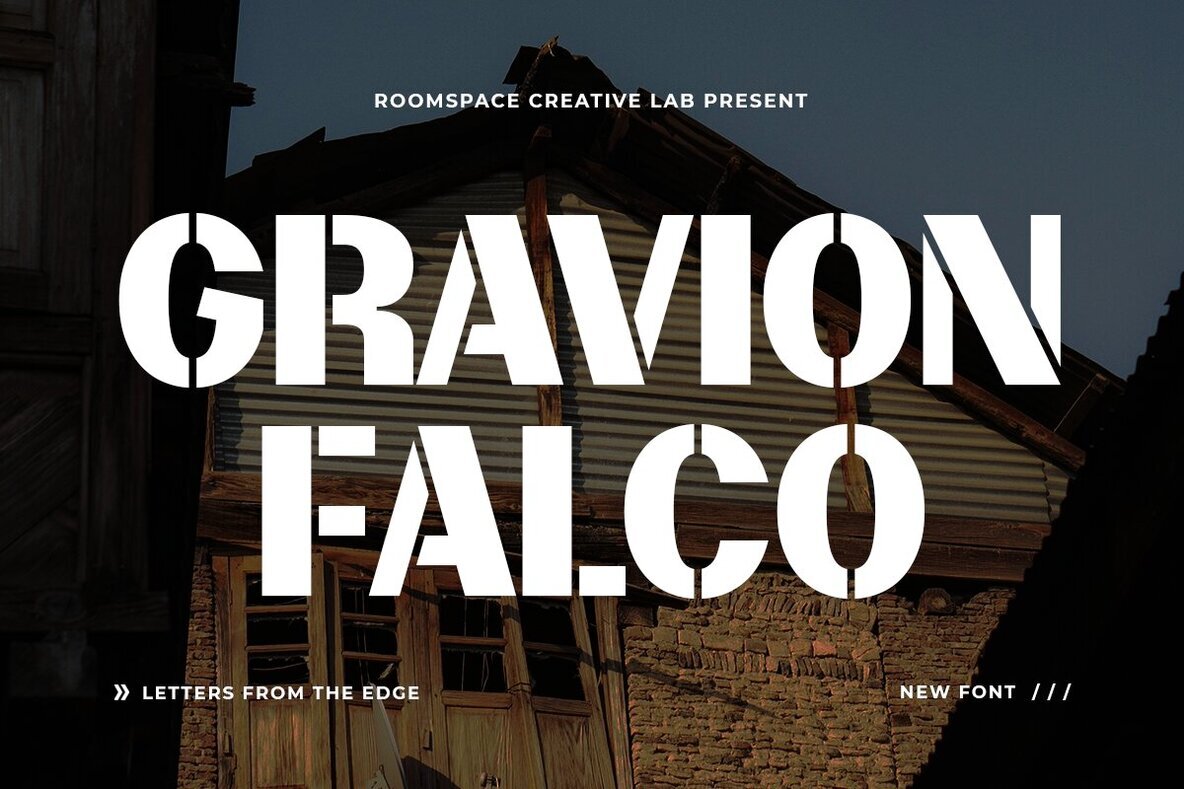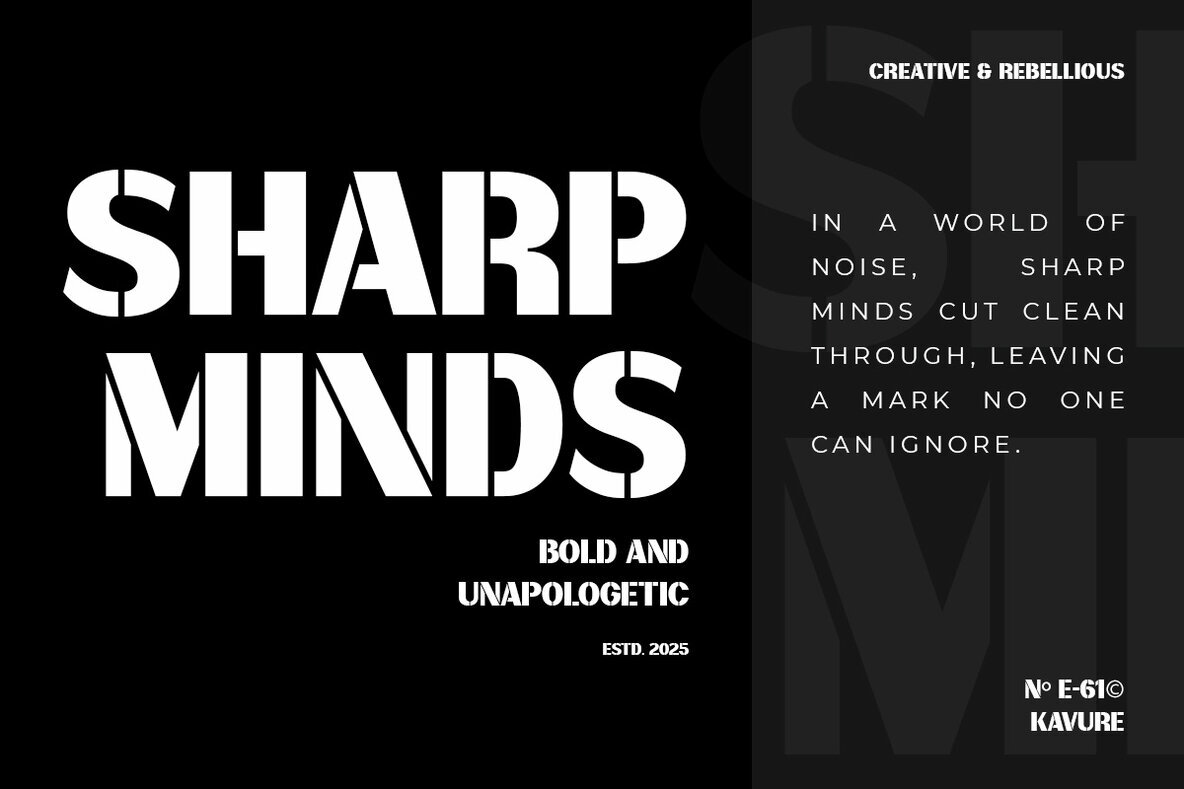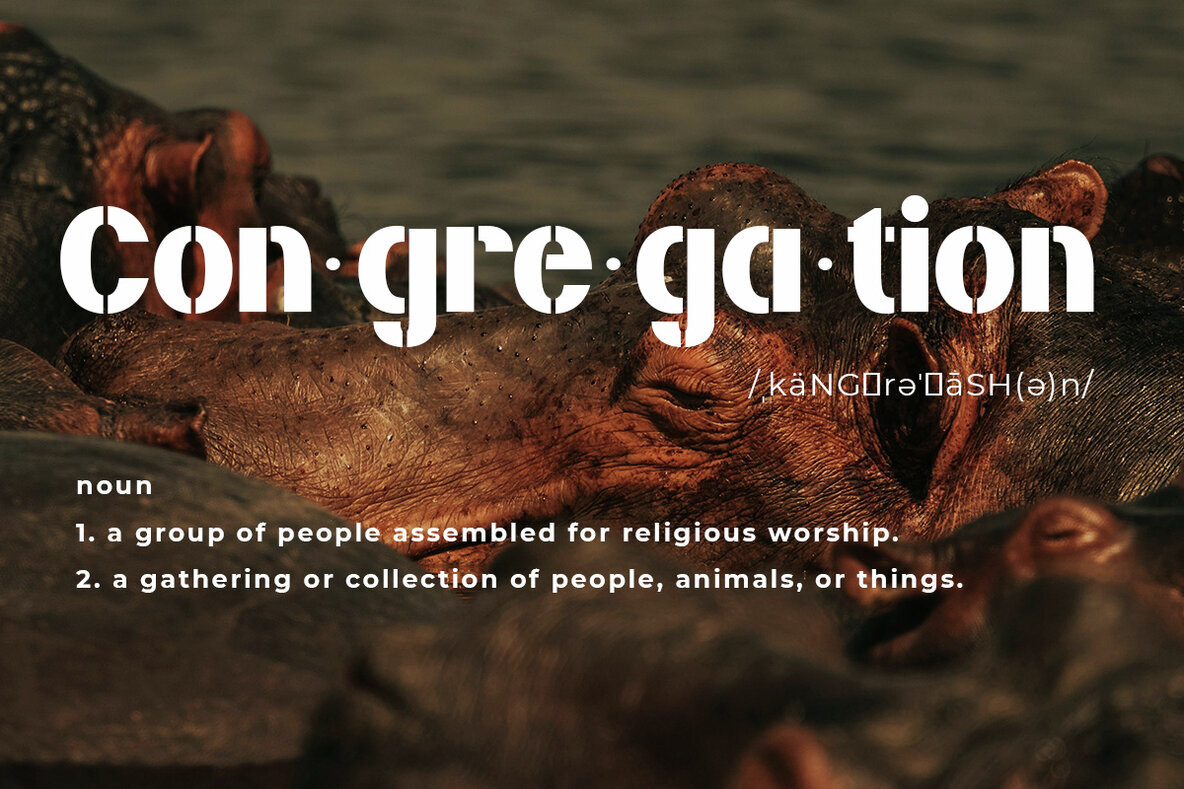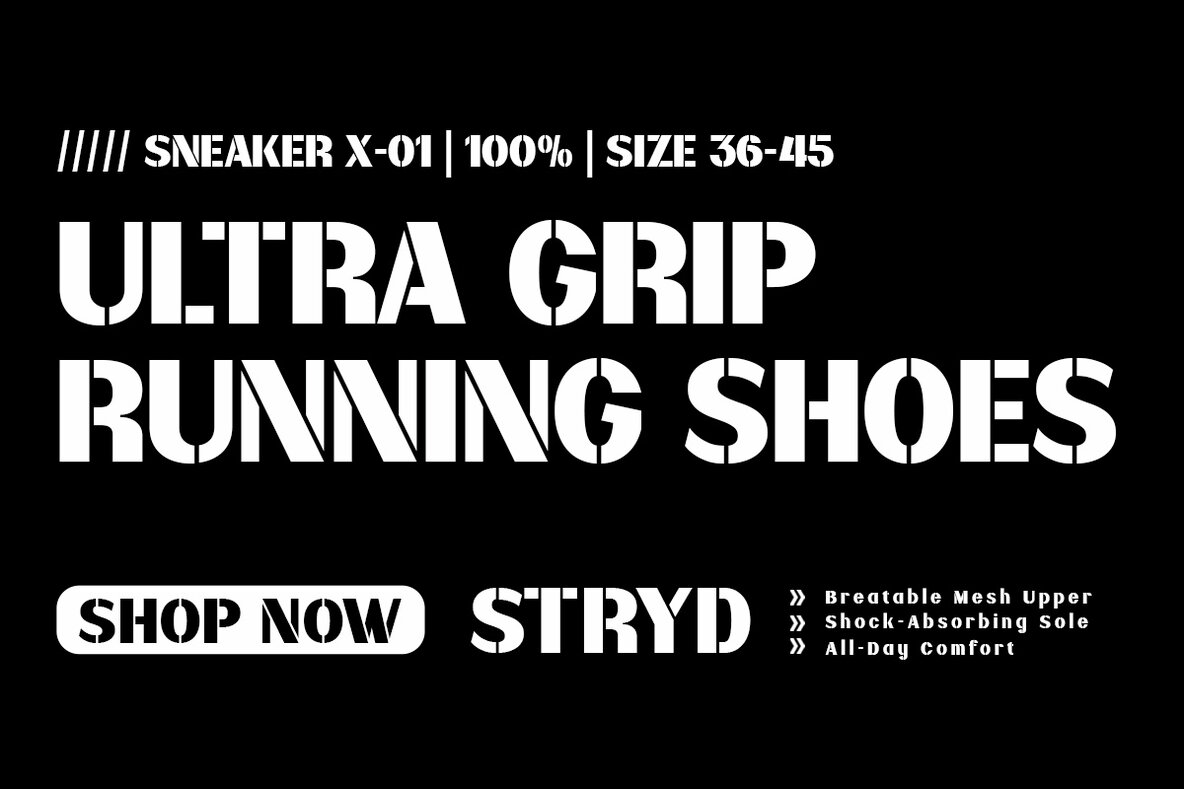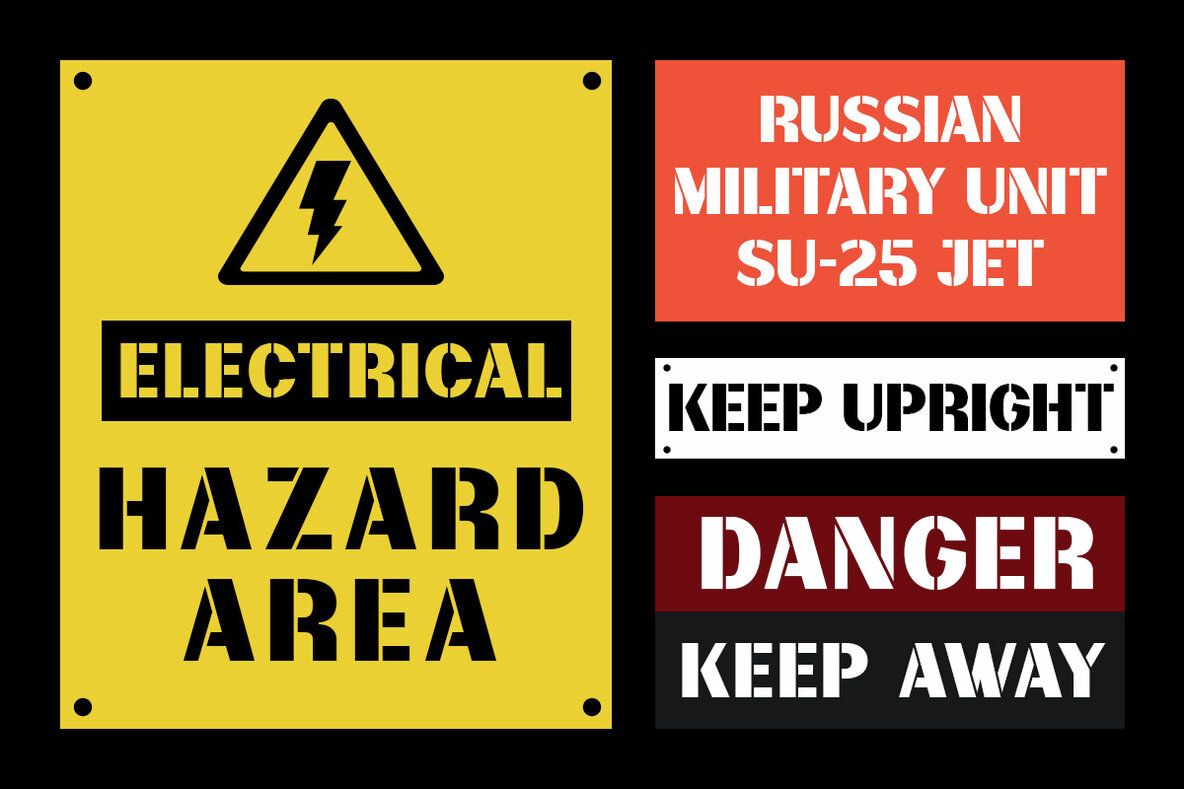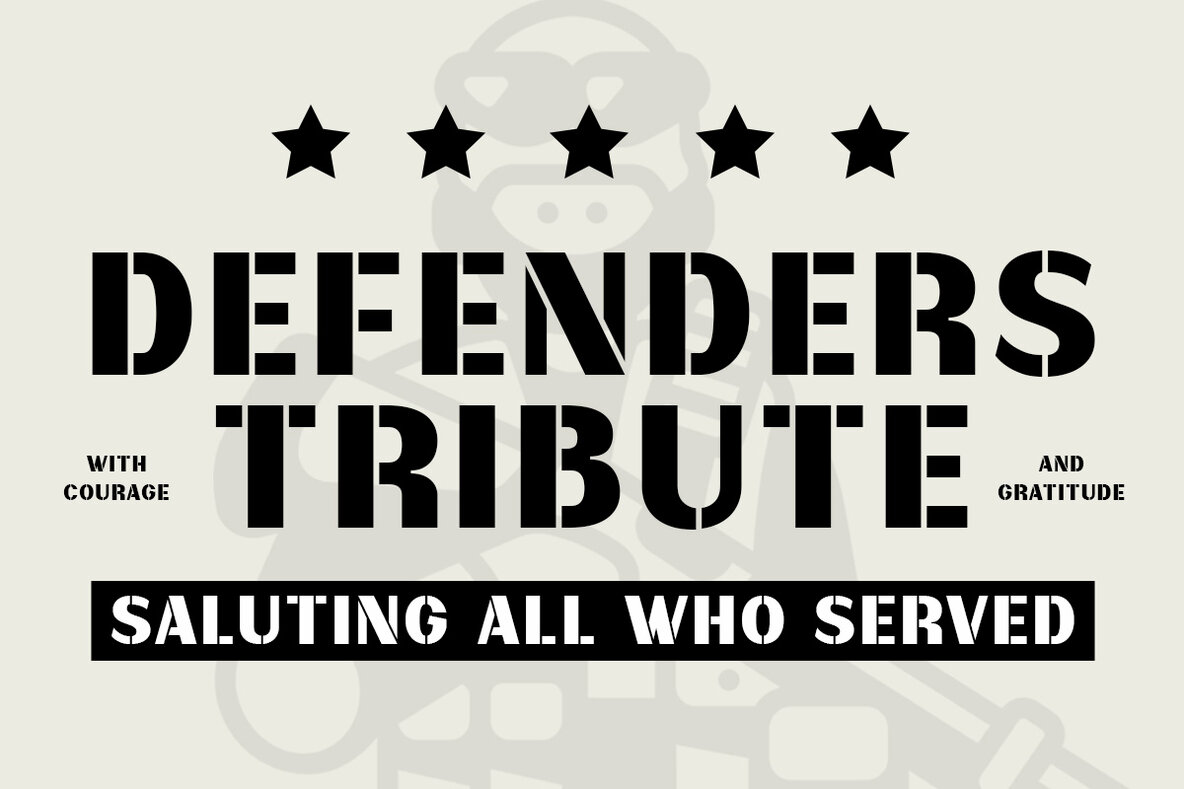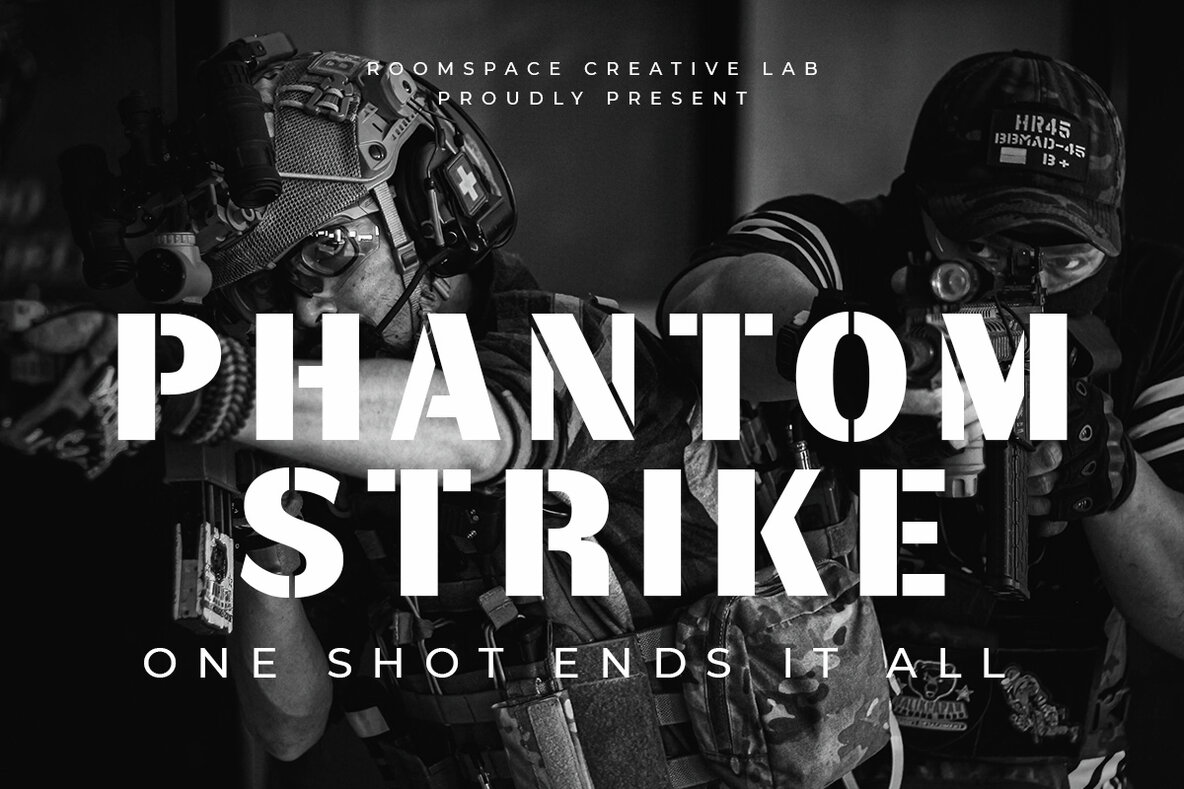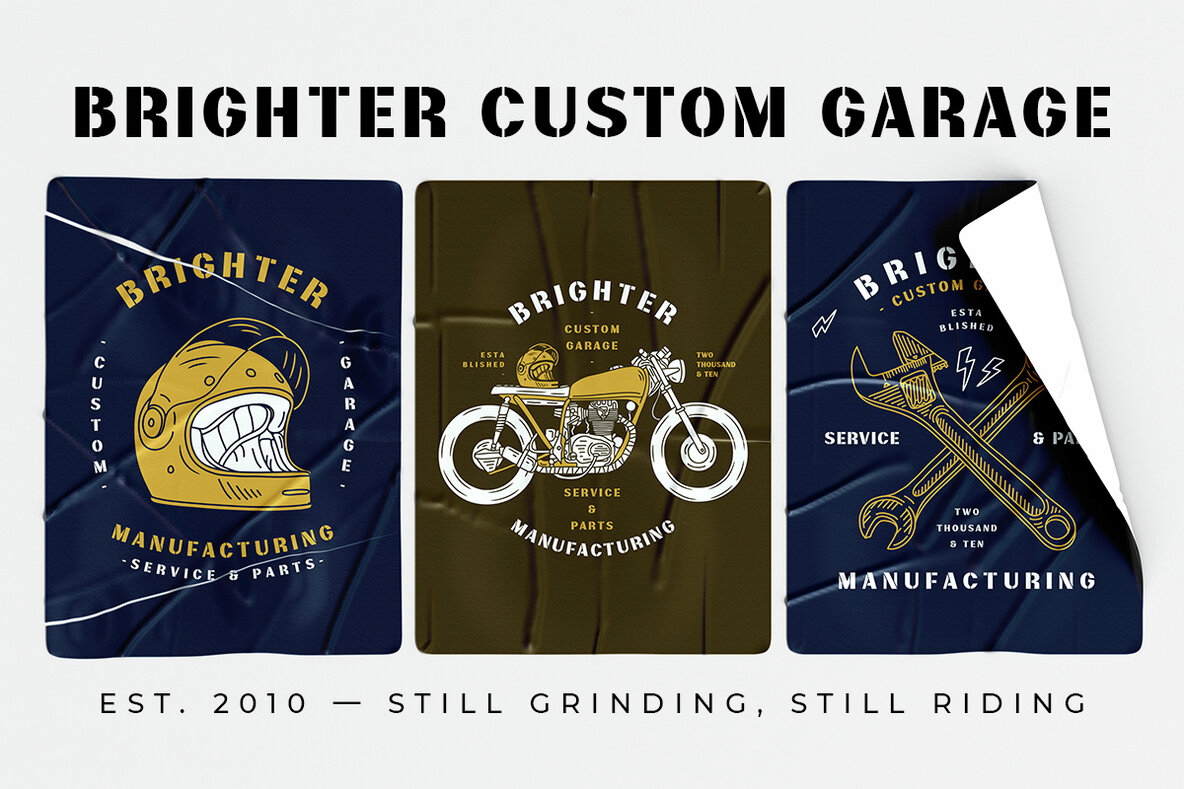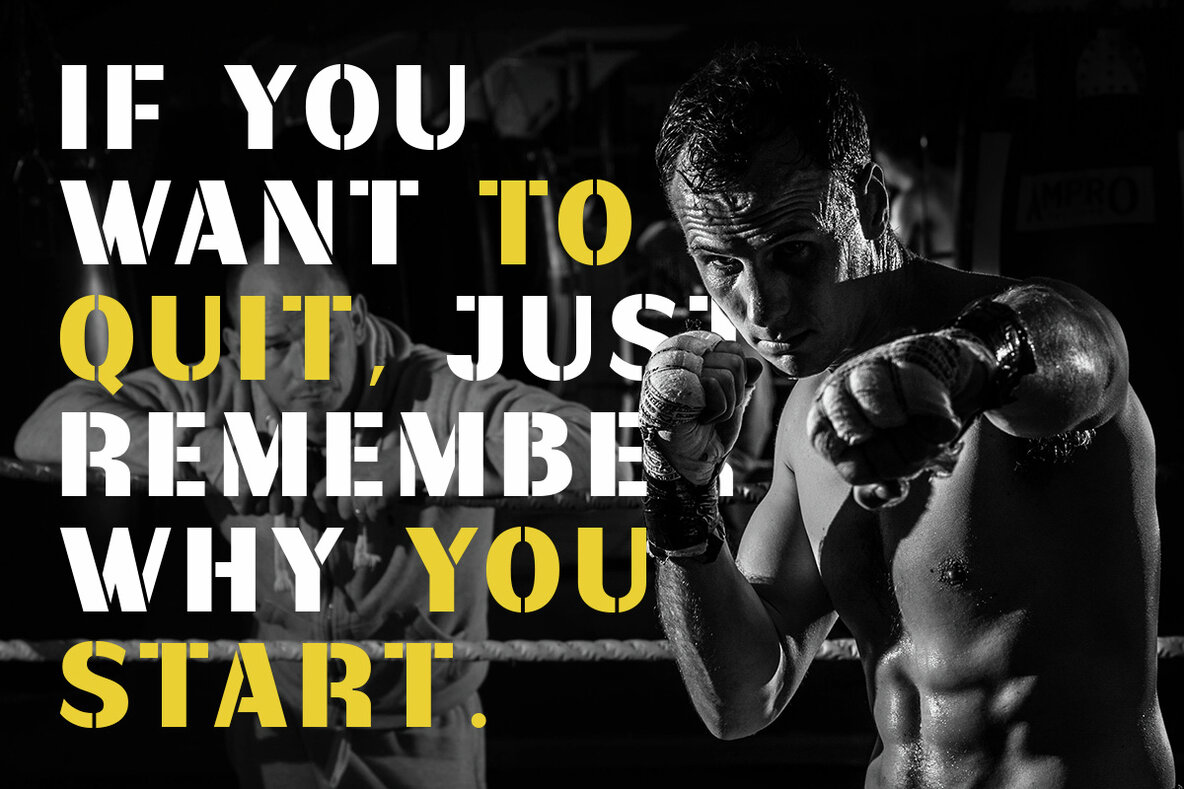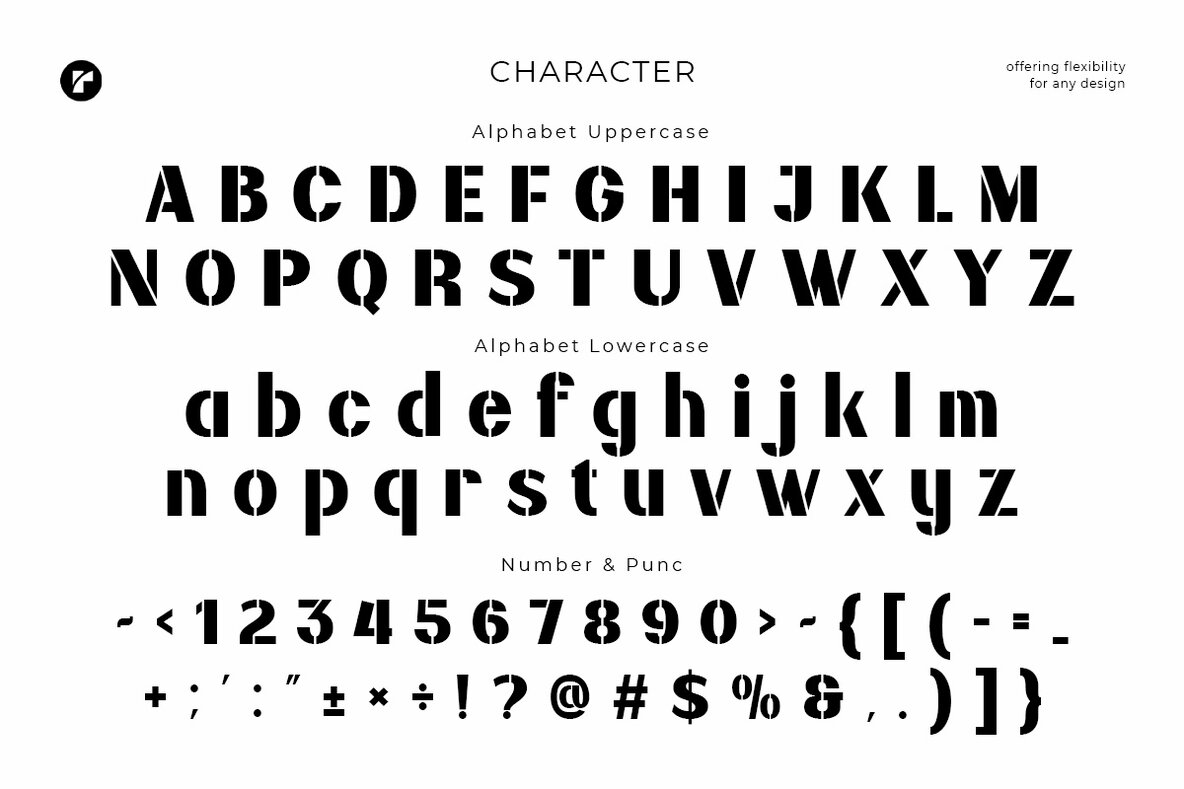
Gravion Falco Font
Gravion Falco Regular
Embrace the contemporary edge of Gravion Falco, a bold and sharp stencil sans serif font that effortlessly combines industrial strength with modern style. Its structured lines, geometric shapes, and distinctive cutout details make it a perfect choice for powerful and professional design work. Use Gravion Falco to enhance your logos, branding, packaging, posters, and editorial pieces with its unique style.Gravion Falco